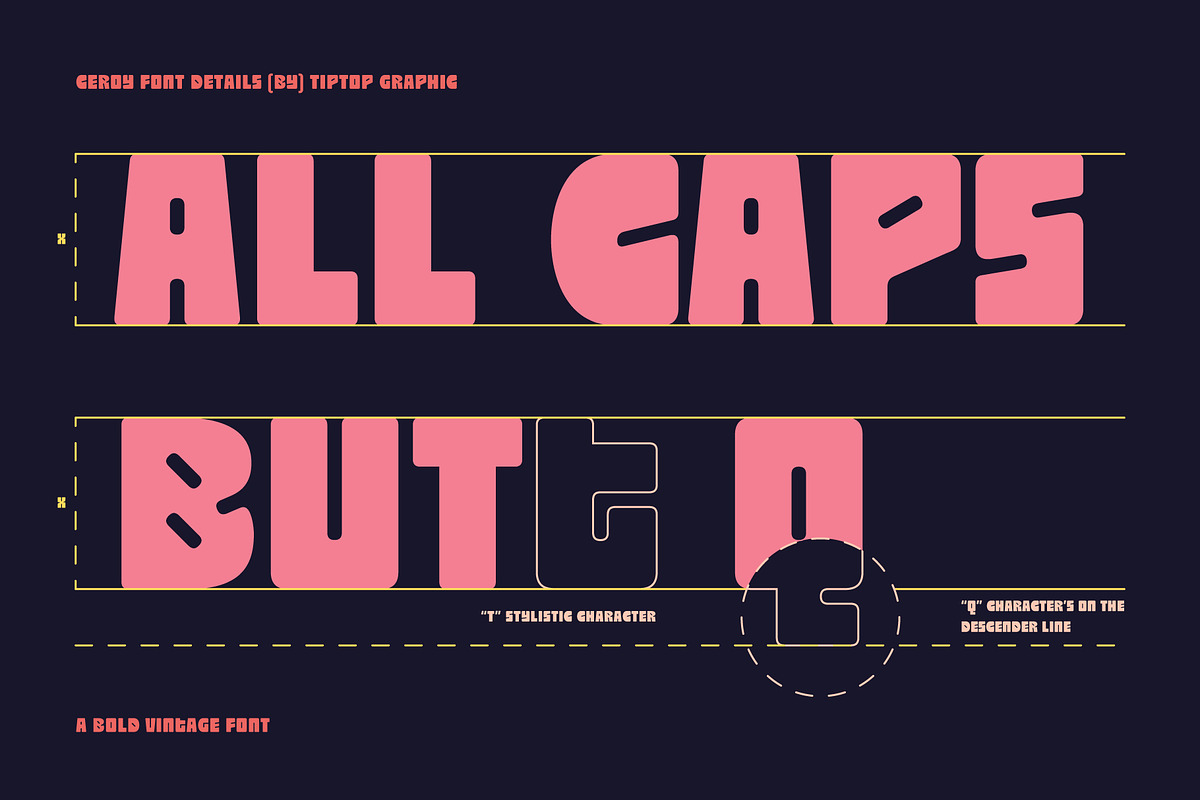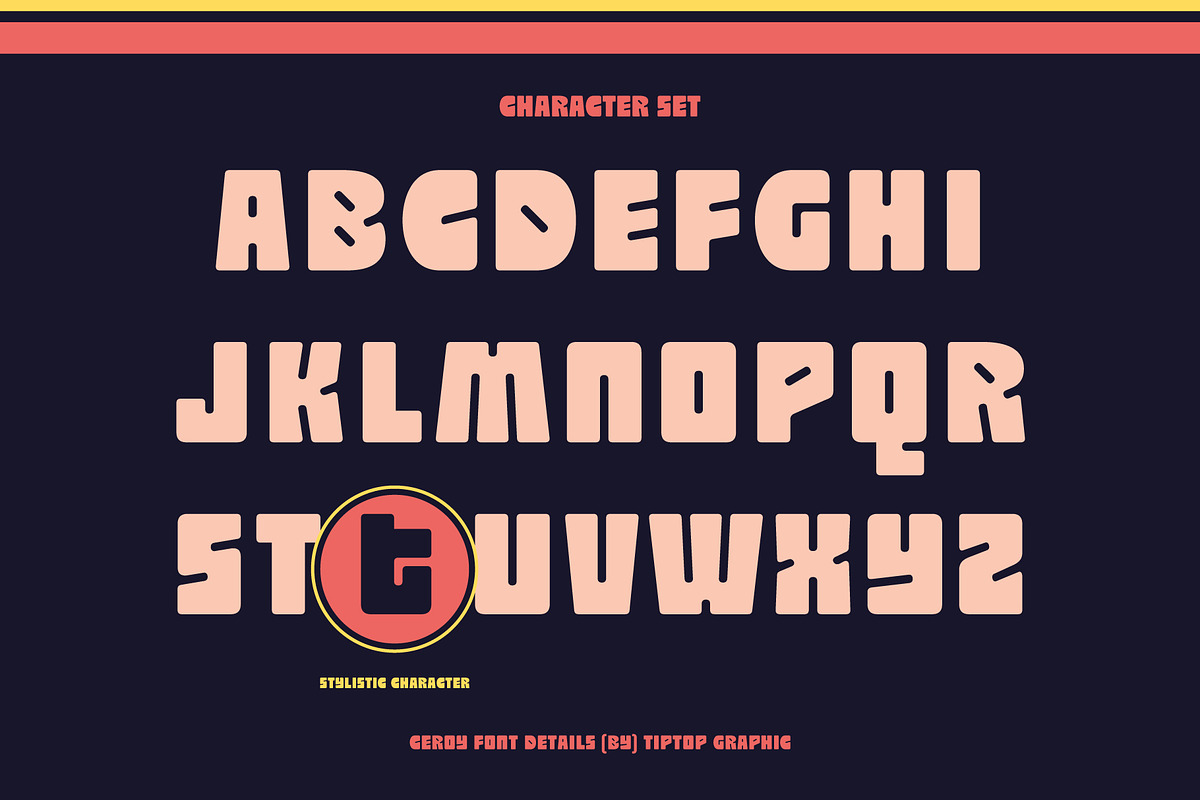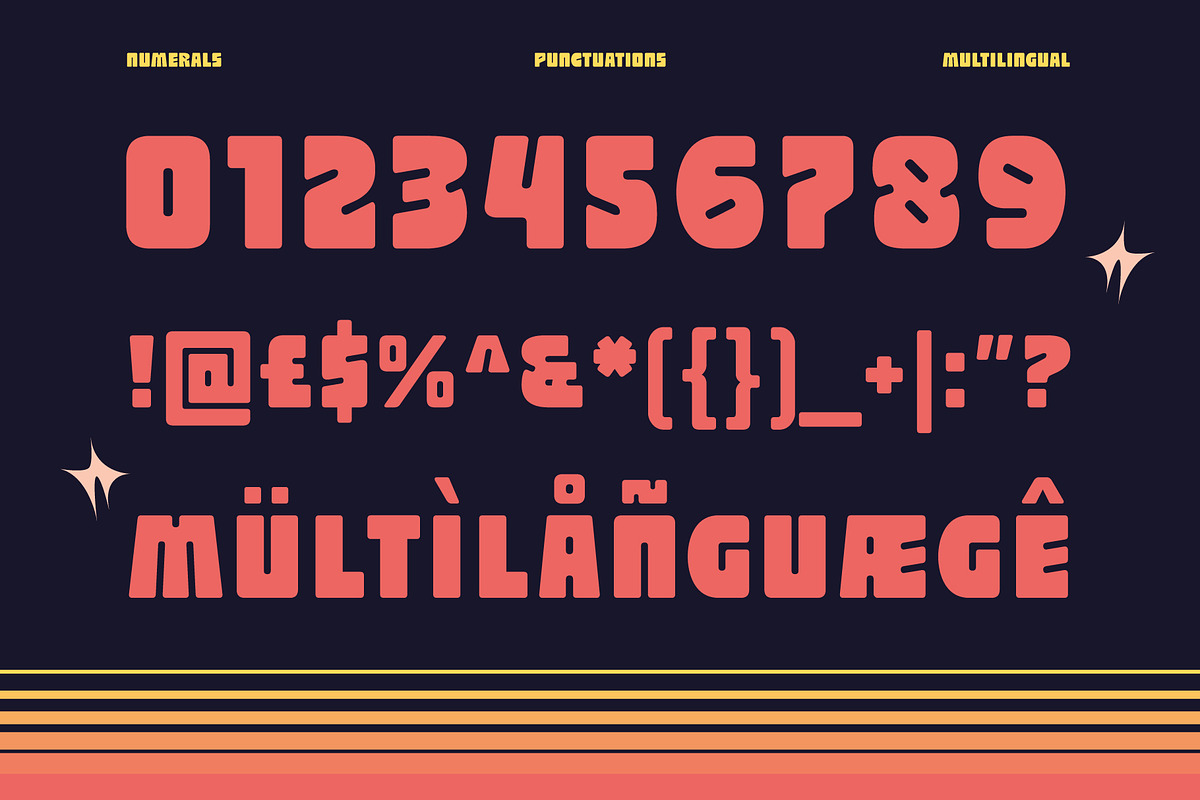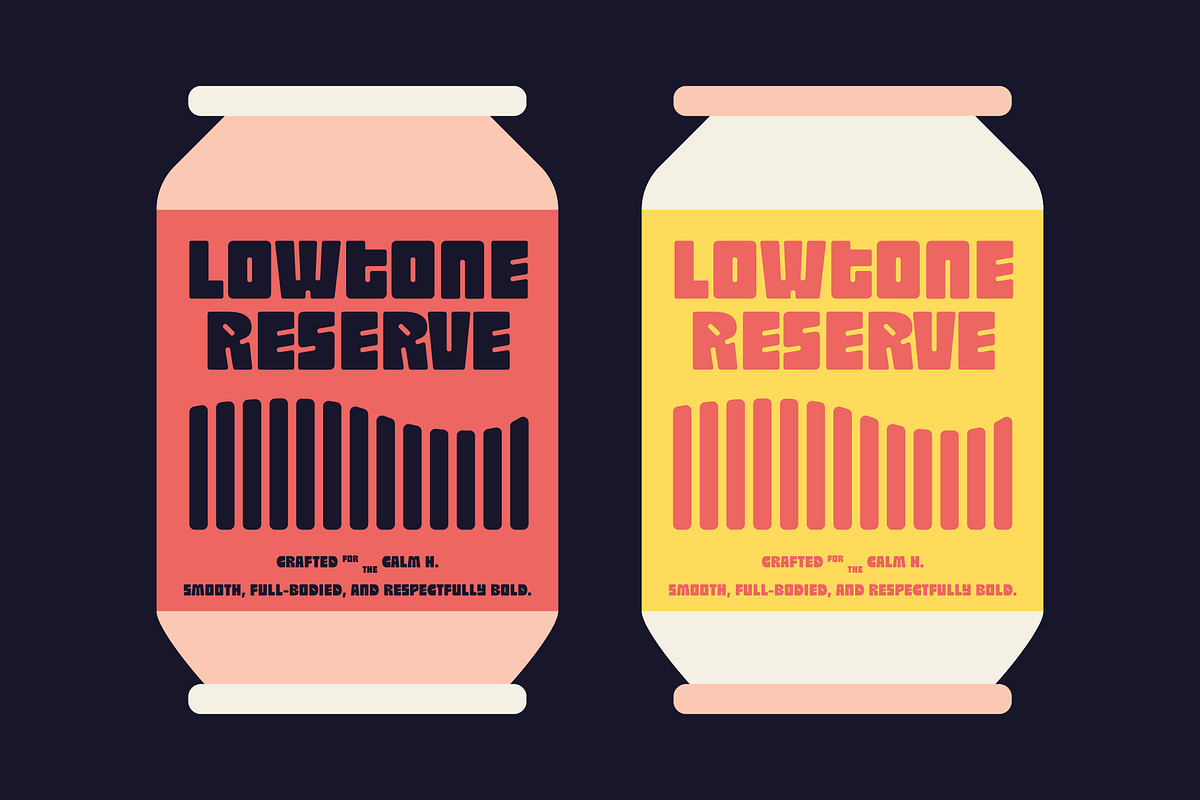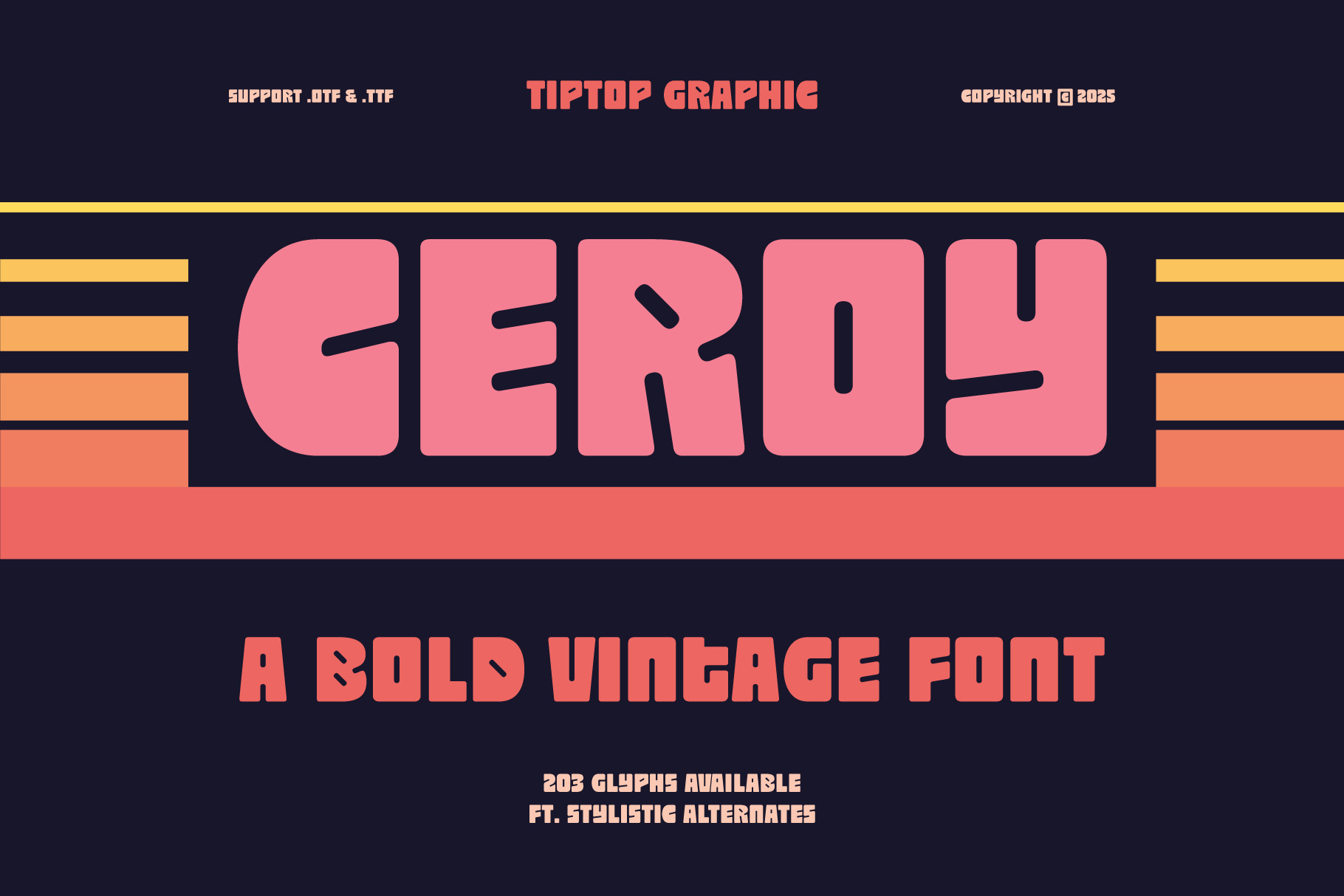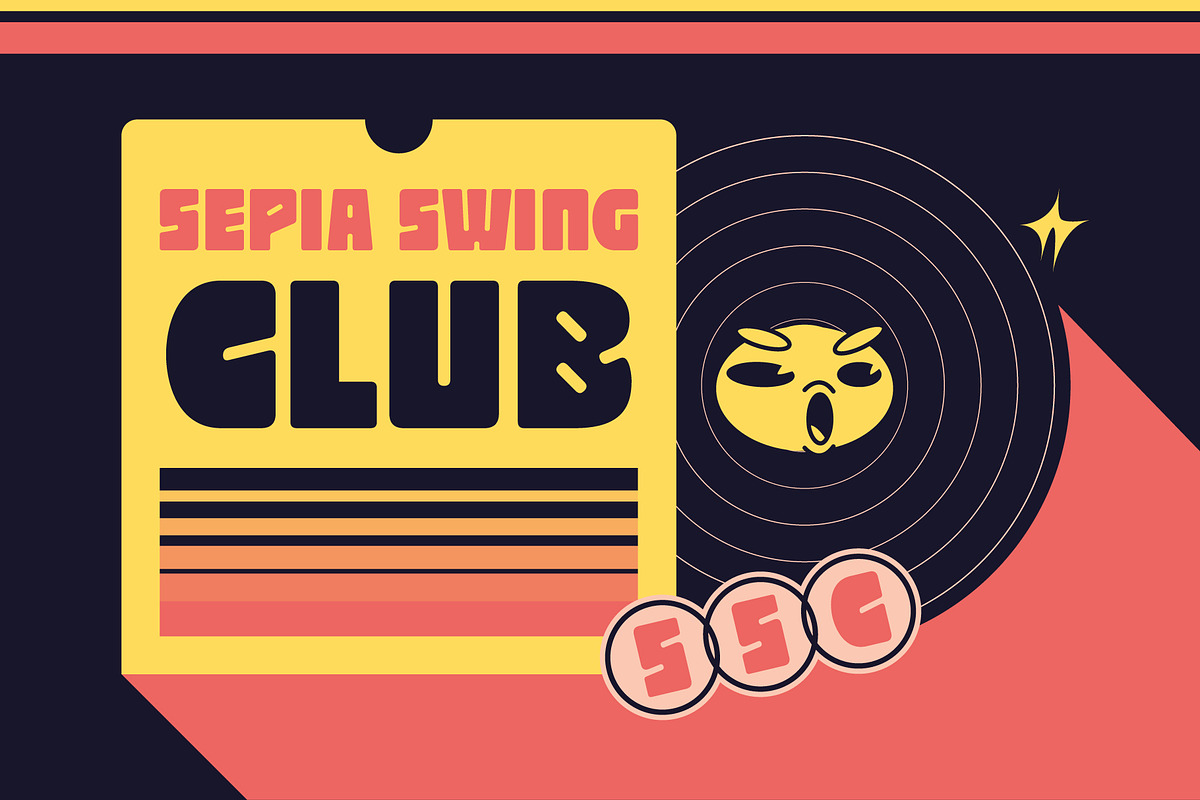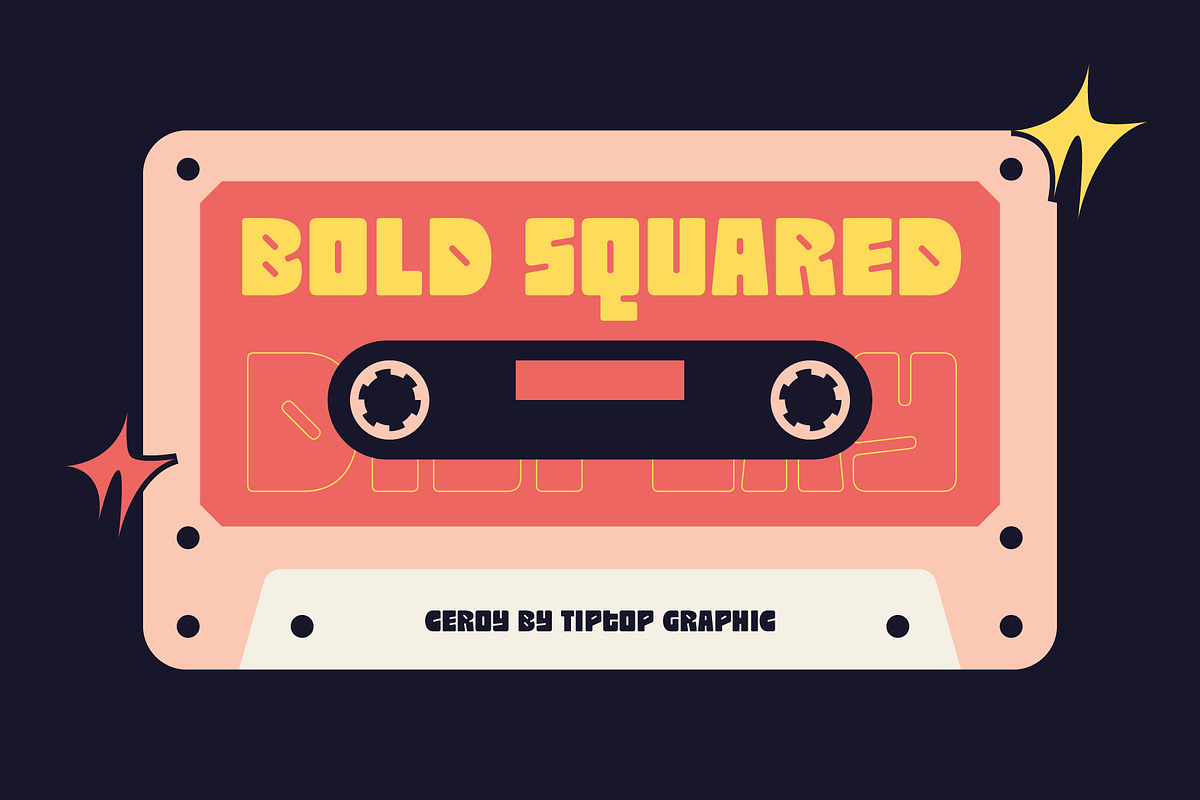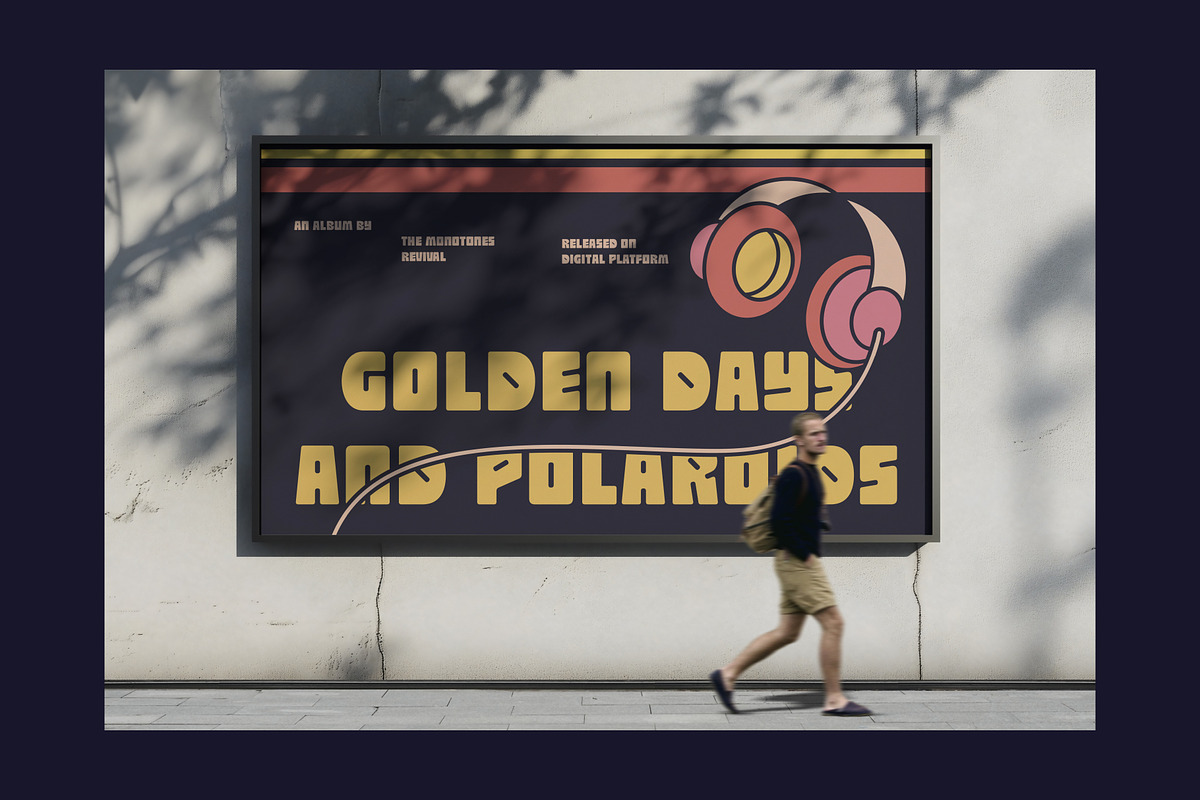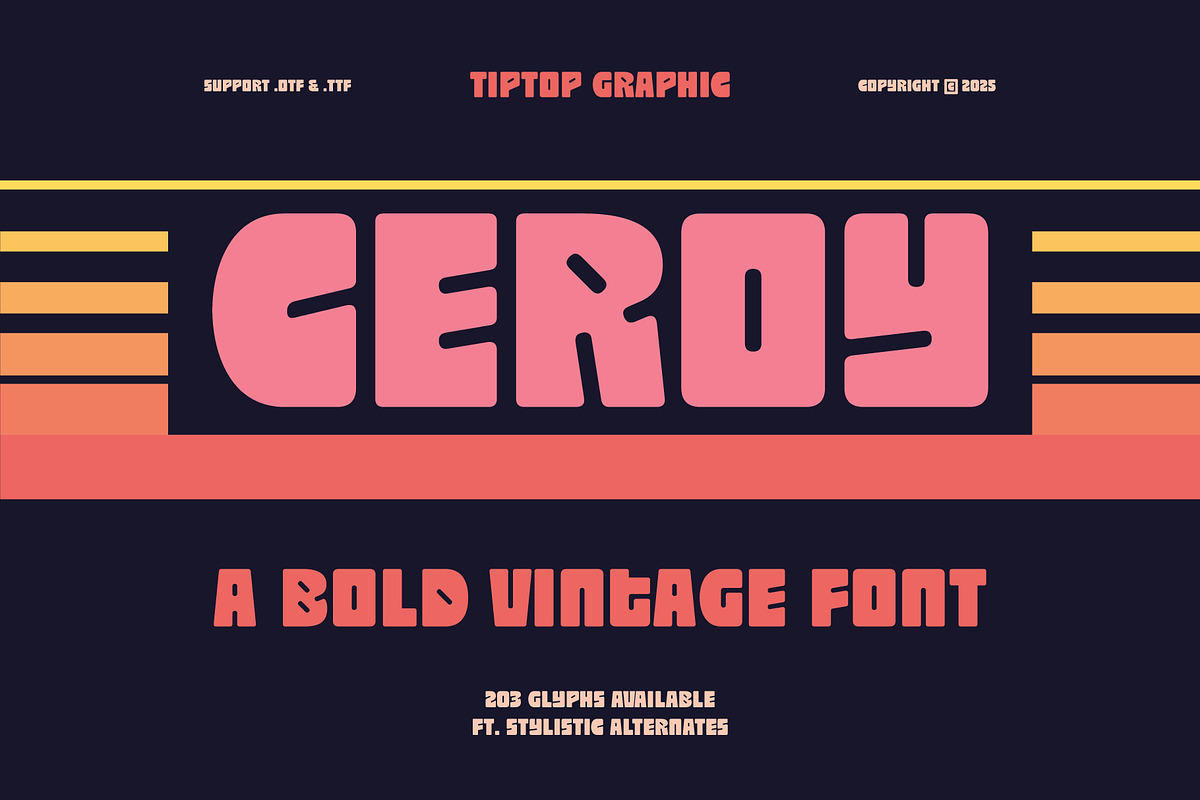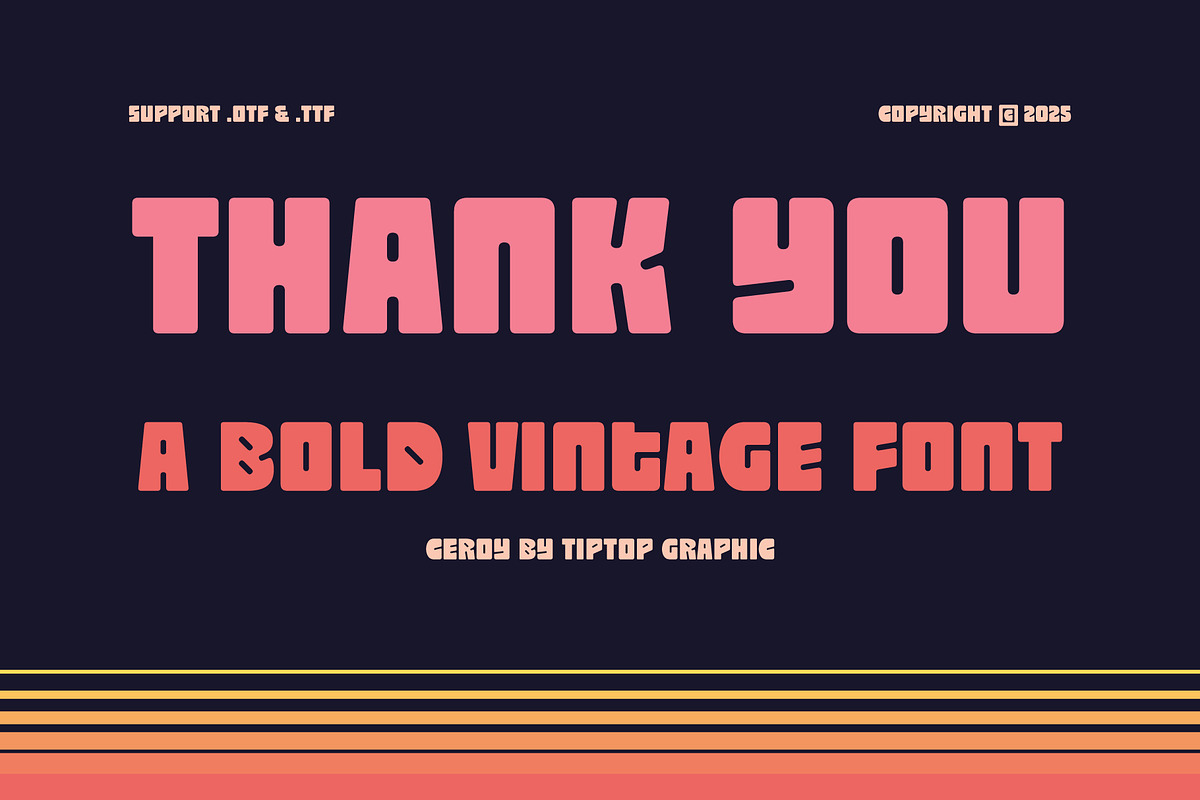
Ceroy - Bold Vintage Font
Ceroy – Bold Vintage Font Ceroy is a bold, vintage-inspired font with a striking slanted angle that commands attention. Perfect for logos, posters, and retro branding, it combines rugged charm with dynamic motion—bringing a timeless edge to any design.
Ceroy – Bold Vintage Font features:
- All Caps
- Punctuation & Numbers
- Stylist Alternates